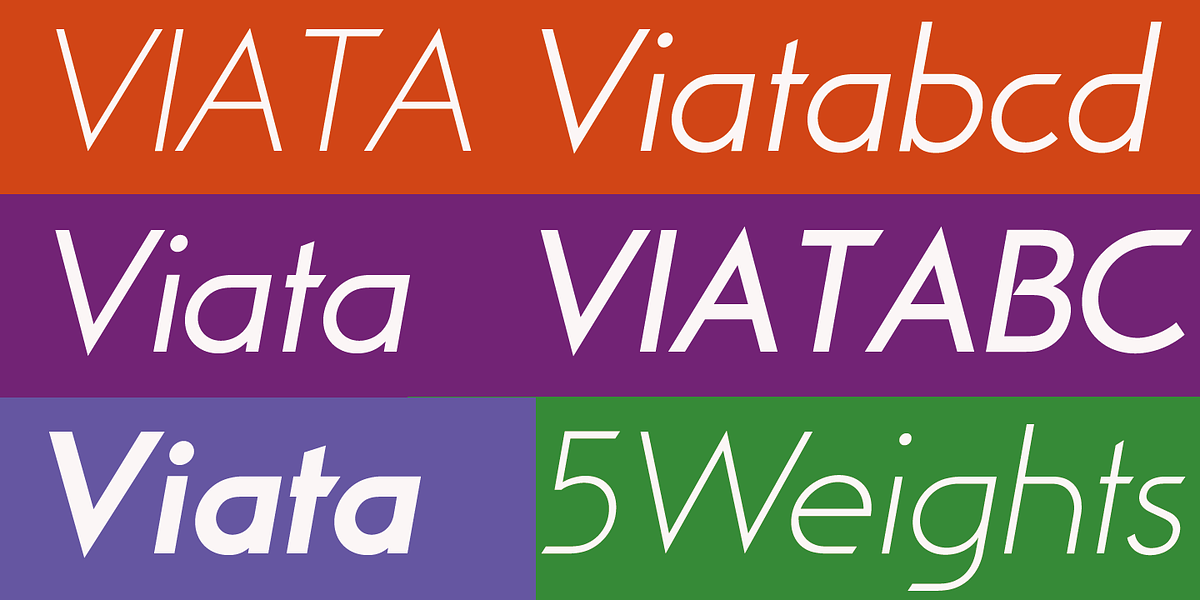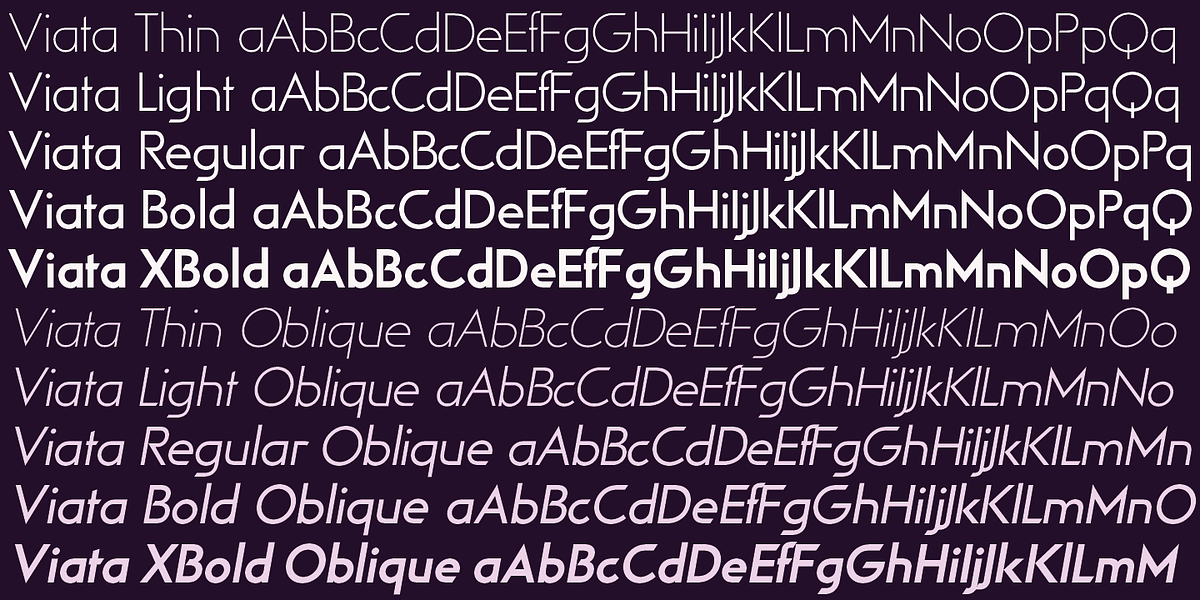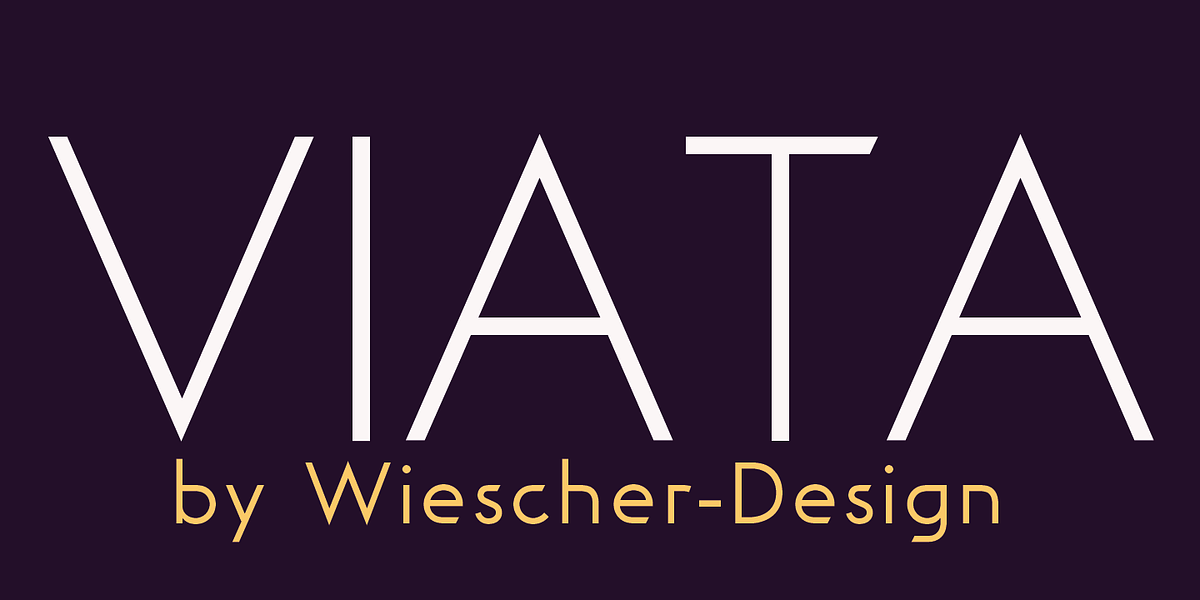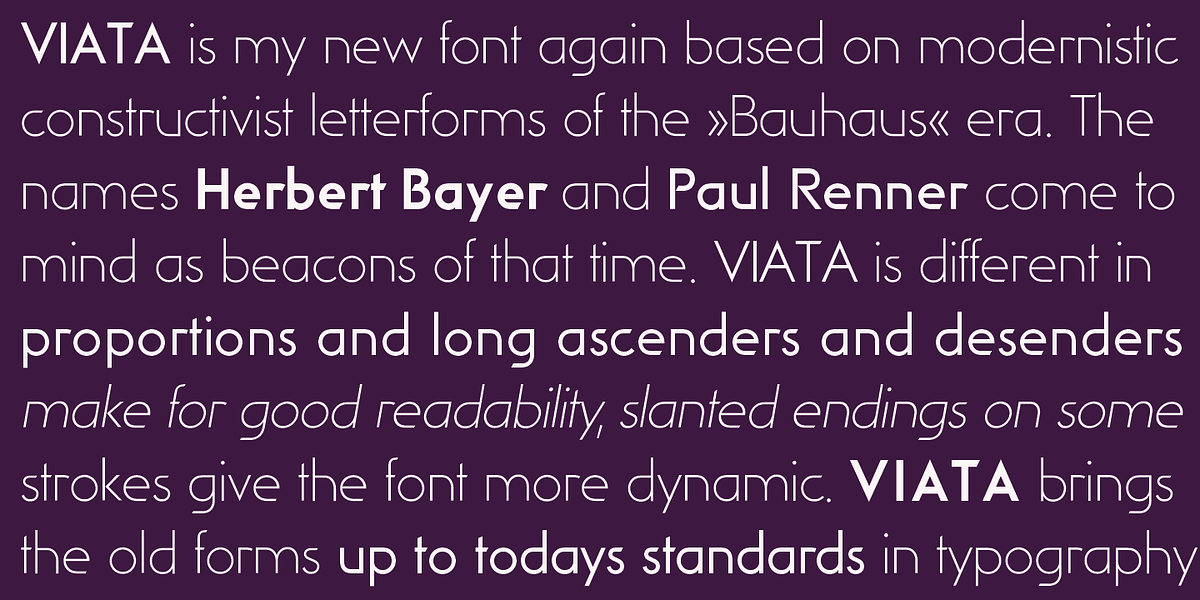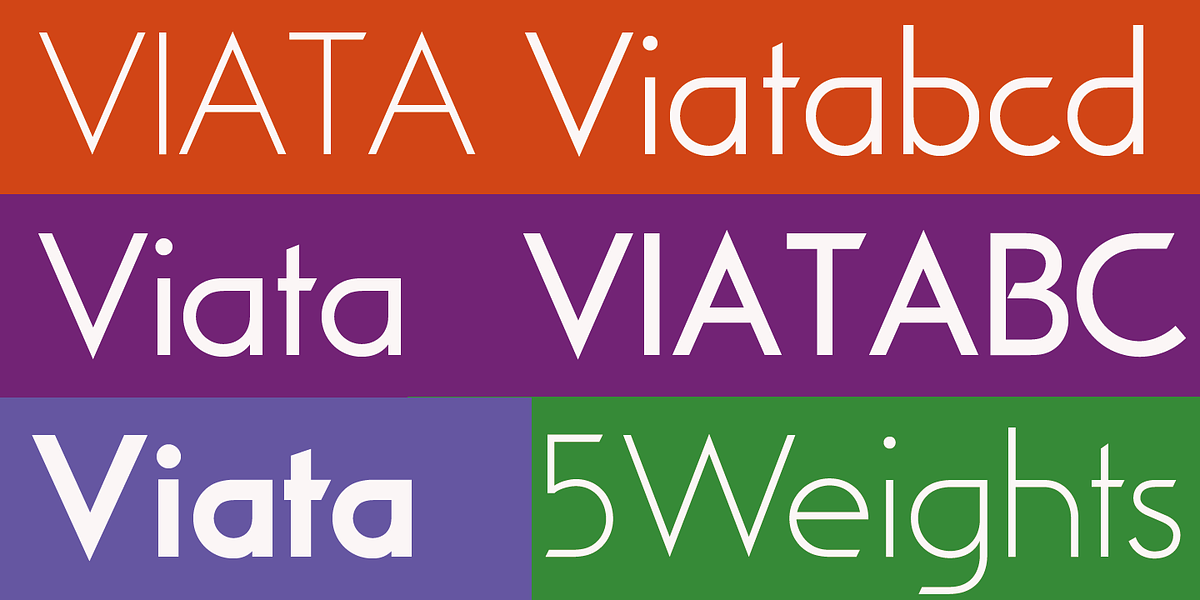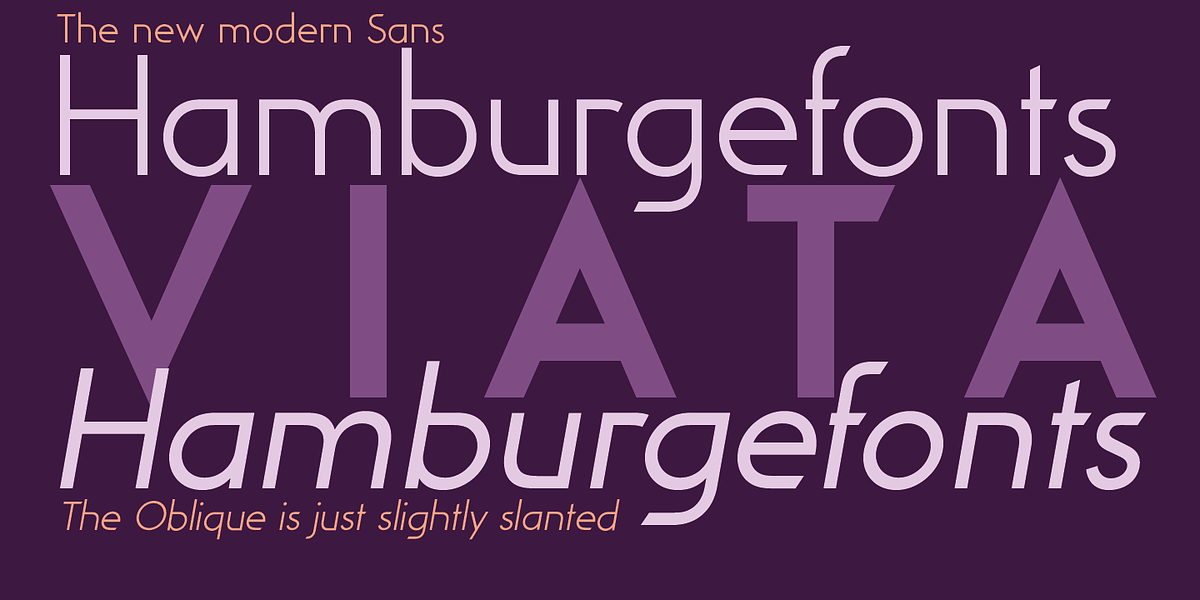
Viata
VIATA is an experimental humanist sans serif font inspired by the modernist and constructivist letterforms of the Bauhaus era. Designers Herbert Bayer and Paul Renner are cited as influences. The font features distinct glyphs with flat tops, round bottoms, and slanted endings on some horizontal strokes for a dynamic feel. VIATA also includes an additional set of medieval ciphers.